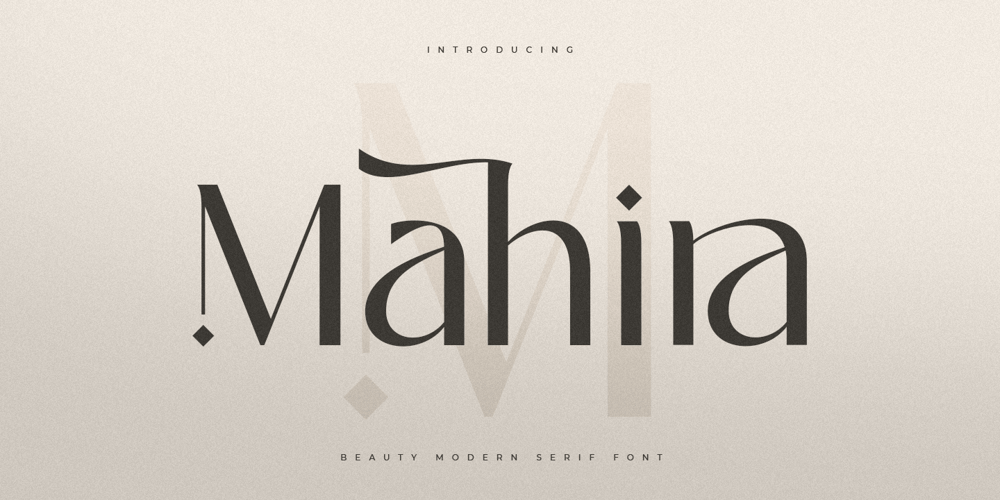
Mahira Font Family was designed by Zamroni Hamzah and published by Sensatype Studio. Mahira contains 1 styles and family package options. Mighty is Modern Luxury Unique Serif Font is a well-balanced contemporary font with a fancy, unique, and versatile Luxury serif, font that you can combine to get any variations and unique shapes easily just in seconds with choose alternates of them.What’s Included: Character set A-Z Numerals & Punctuation Accented Characters (West Europe) Works on PC & Mac Recommended using Adobe Illustrator or Adobe Photoshop. Wish you enjoy our font. đŸ™‚